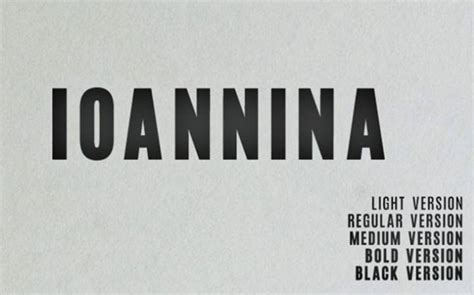
Hey everyone! Today, we’re diving into the awesome world of typography and specifically talking about the Ioannina font . If you’re a designer, a student working on a project, or just someone who appreciates a cool typeface, you’re in for a treat. We’re going to explore how you can get your hands on this fantastic font for free and give your designs that extra edge. Let’s get started!
Why the Ioannina Font is a Game Changer
The Ioannina font isn’t just another pretty typeface; it’s a versatile tool that can seriously elevate your creative projects. Whether you’re crafting a brand identity, designing a website, or putting together a social media graphic, the right font can make all the difference. The Ioannina font, guys, offers a unique blend of modern aesthetics and classic readability, making it suitable for a wide range of applications. Its clean lines and distinct character set ensure that your message is not only seen but also remembered. Think about it: a bold headline in Ioannina grabs attention, while its more subdued weights can be perfect for body text, ensuring a pleasant reading experience. This adaptability is key for designers who need to switch between different media and styles. Plus, having a go-to font like Ioannina in your arsenal saves you time and mental energy, letting you focus on the creative aspects of your work. It’s that reliable friend in your design toolkit that you know will always deliver. We’ve seen it used in everything from elegant wedding invitations to edgy concert posters, and it nails it every single time. The free Ioannina font availability means you don’t have to break the bank to achieve professional-looking results. This democratization of design resources is something we totally champion here.
Tips for Using the Ioannina Font Effectively
Now that you know where to find the free Ioannina font , let’s talk about how to make it shine in your designs. Simply downloading a font is just the first step; understanding how to use it effectively is where the magic truly happens. The Ioannina font is quite versatile, but like any great tool, it has its strengths and best-use cases. For starters, consider its different weights and styles. Does it have bold, italic, light, or regular versions? Using these variations can add depth and hierarchy to your text. For example, you could use the bold weight for headlines and the regular weight for subheadings or body text. This creates a visual flow that guides the reader’s eye. Another tip is pairing it with other fonts. While Ioannina might be your star player, it often looks best when complemented by a secondary font. Think about contrast: if Ioannina is a sans-serif, perhaps pair it with a serif font for body text, or vice-versa. This contrast can make your overall design more dynamic and interesting. Don’t be afraid to experiment with size and spacing (kerning and leading). The Ioannina font free download gives you the freedom to play around. Adjusting the size can change the mood – smaller might feel more intimate, while larger can be more impactful. Proper spacing ensures legibility, especially for longer blocks of text. Remember, the goal is to communicate your message clearly and attractively. Use Ioannina where it makes sense. It’s fantastic for display purposes, logos, and short, punchy text. For very long articles, you might want to test it to ensure maximum readability across different devices. Ultimately, the best way to learn is by doing. Try out different layouts, experiment with colors, and see how the Ioannina font performs. You’ll quickly develop an intuition for its best applications. Share your creations with us – we’d love to see what you come up with!
Final Thoughts on the Ioannina Font
So there you have it, folks! We’ve covered why the Ioannina font is a fantastic choice for your design needs and, most importantly, how you can snag it for free . Remember to always check the licensing to ensure you’re using it appropriately, whether for personal or commercial projects. Experiment with its different weights and styles, pair it with other fonts, and play with spacing and size to achieve the perfect look. The availability of resources like the free Ioannina font empowers us all to create more compelling and professional-looking designs without breaking the bank. It’s a testament to the collaborative spirit of the creative community. Go ahead, download it, and let your creativity flow! We can’t wait to see what amazing things you create with this versatile typeface. Happy designing, everyone!